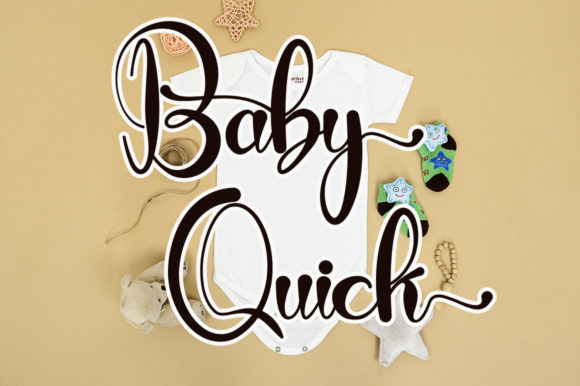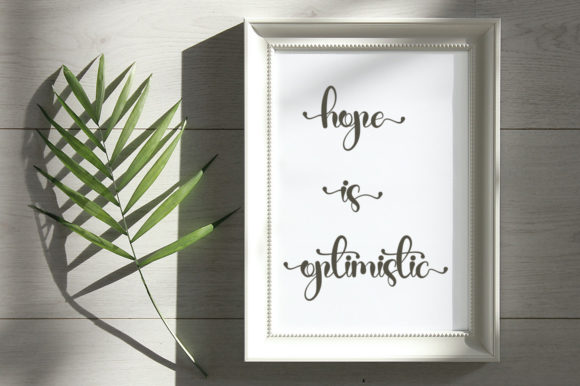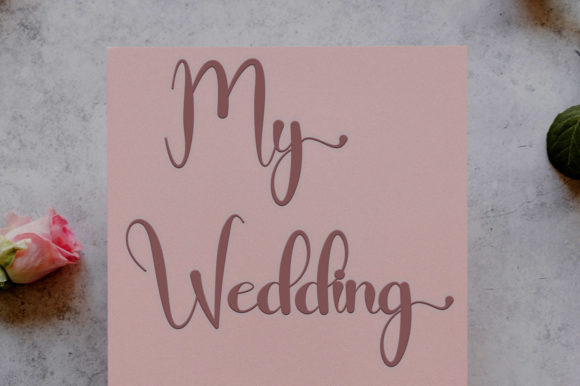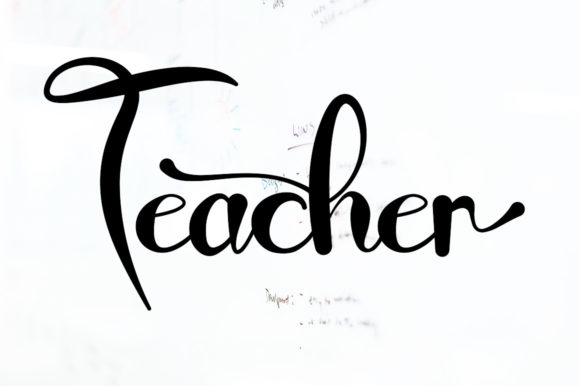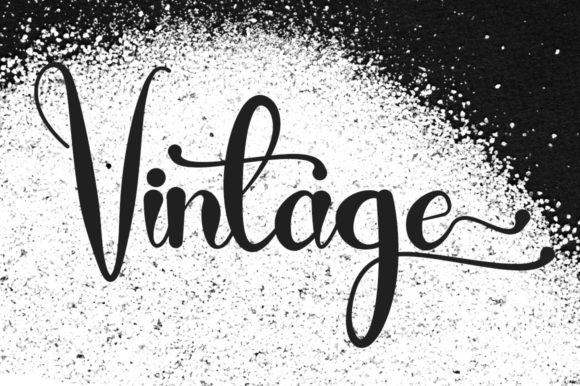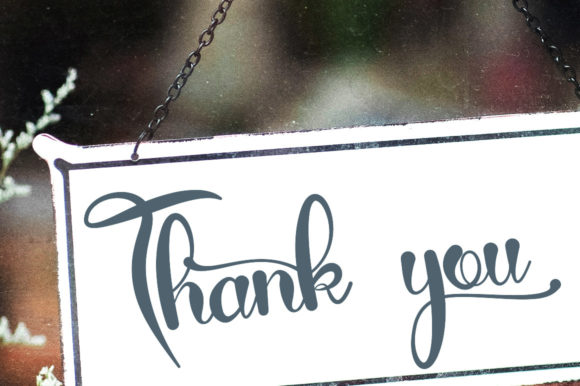
Introduction to Sacha Font
Sacha is an interesting handwritten font perfect for any design you wish to create.
Add it to your creative projects, and it will make your work sparkle with elegance and delight This font is PUA encoded, which means you can access all of the glyphs and swashes with ease.
Key Features of Sacha Font
Why Choose Sacha Font?
Sacha Font offers exceptional quality and versatility, making it a valuable addition to your design toolkit. Whether you’re creating for personal projects or commercial use, Sacha Font delivers professional results.